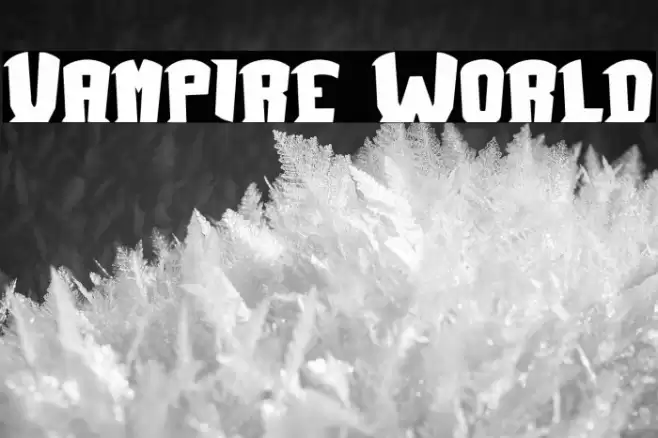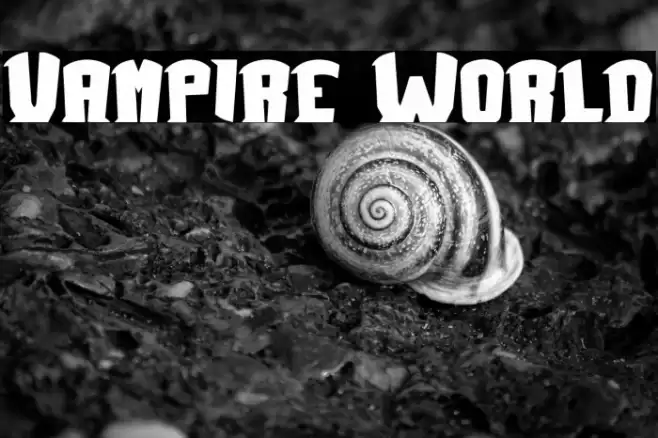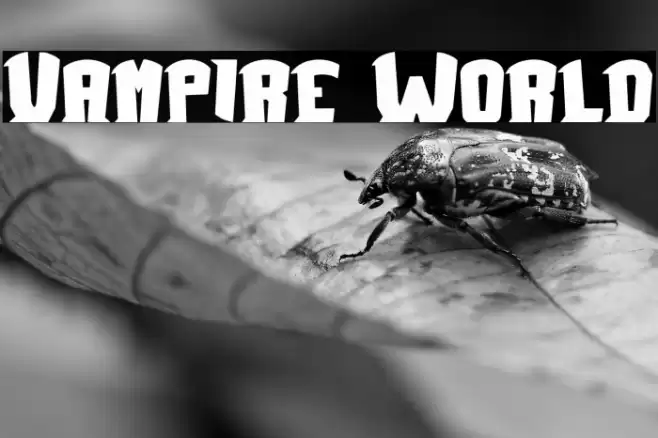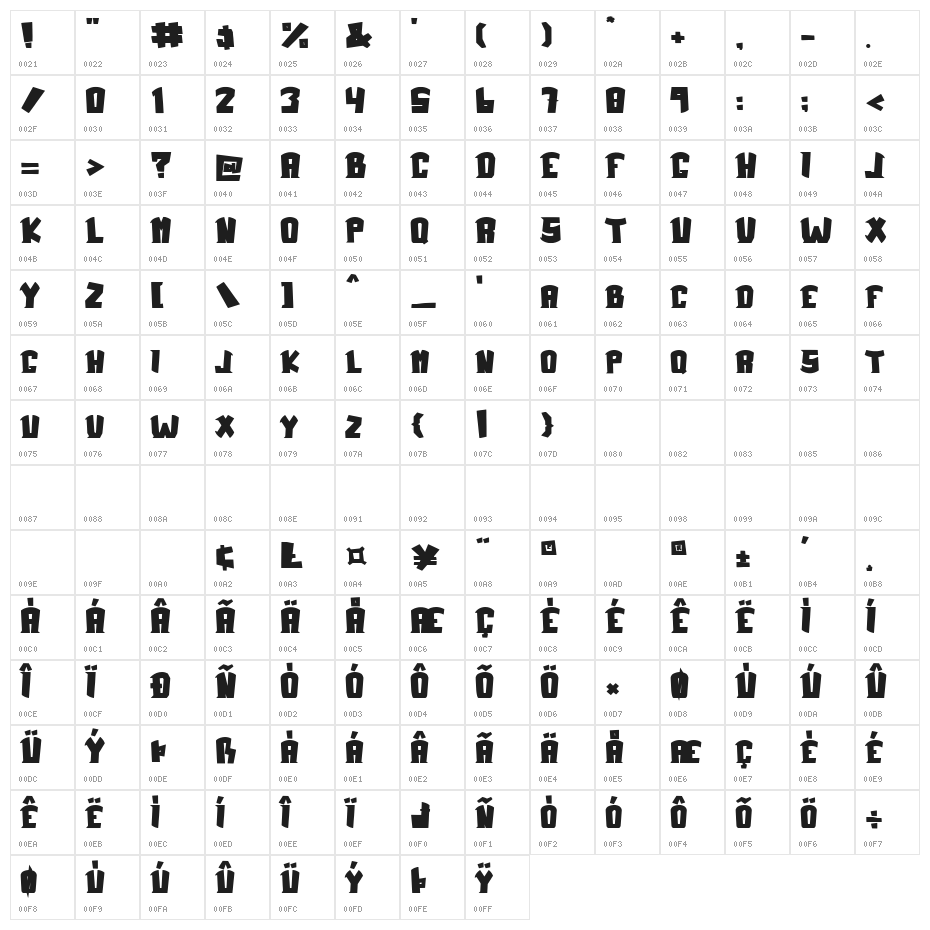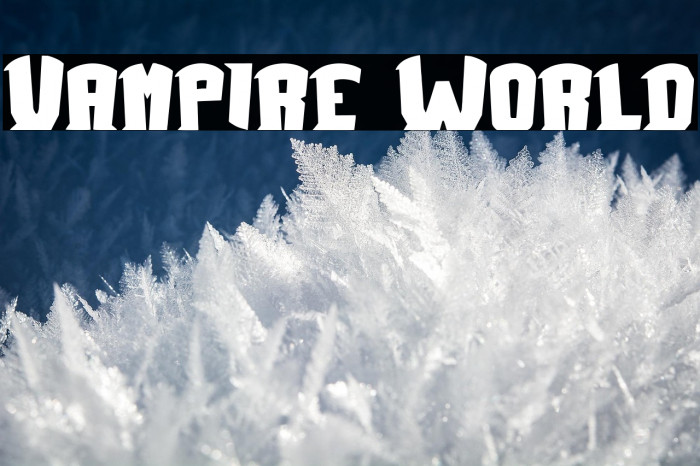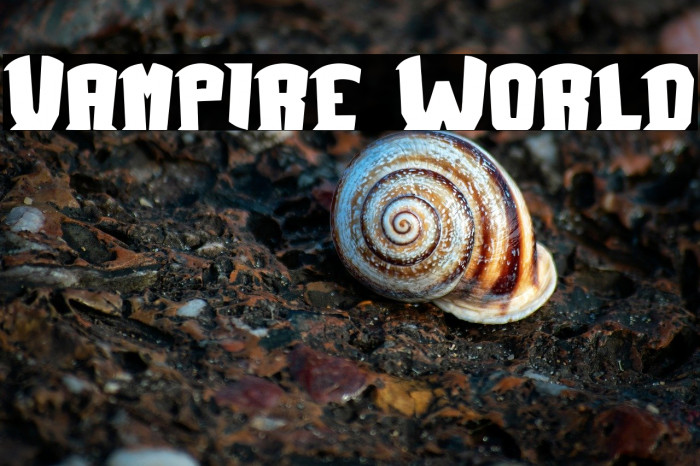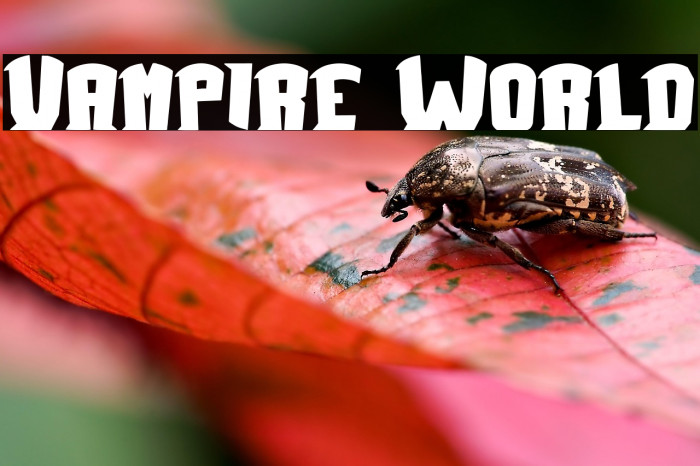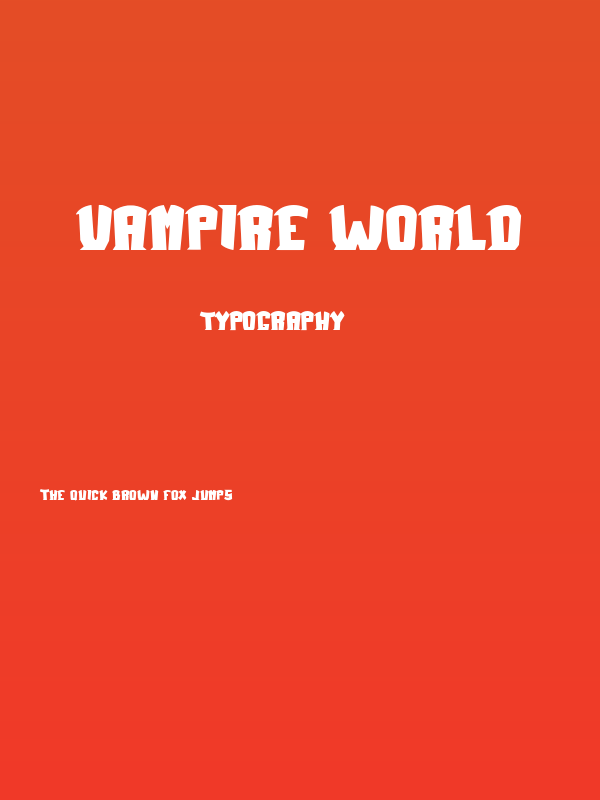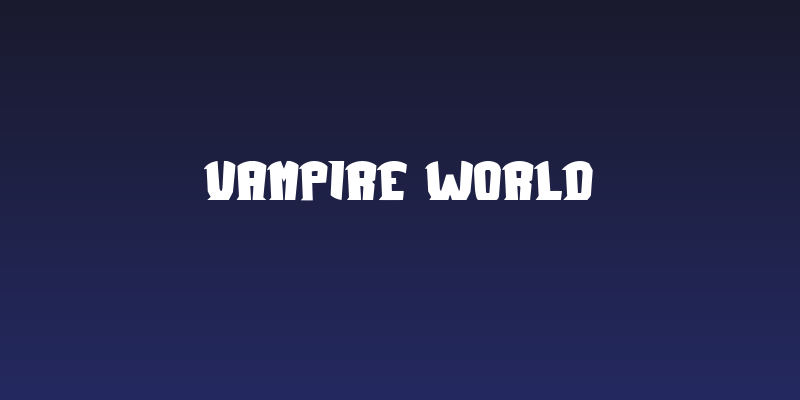
Vampire World Font
Vampire World Description
This font features a bold and striking design with sharp, angular edges that give it a dramatic and edgy appearance. The characters are wide and imposing, with a unique style that combines elements of gothic and modern design. The uppercase and lowercase letters maintain a consistent weight, creating a cohesive look across the alphabet. The numerals and special characters follow the same bold and angular theme, making them stand out prominently. This font is ideal for projects that require a strong visual impact.
Bold, angular font with a gothic and modern flair from Uncategorized fonts.
- Proposed Projects: Perfect for horror-themed posters, Halloween invitations, edgy branding, and video game titles.
- Overall Style: Modern, Gothic